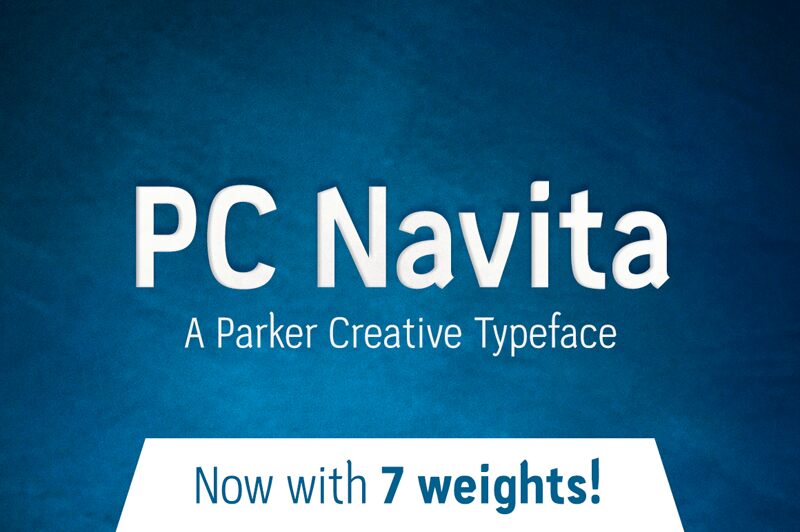
PC Navita is a captivating sans-serif font that immediately commands attention. Crafted by renowned designer Alan Parker, this font exudes a bold, assertive presence with its striking letterforms and taut, compact construction.
The clean, minimalist aesthetic gives PC Navita a sleek, modern feel, making it a versatile choice for a wide range of design applications. Its condensed width lends it a distinct visual impact, allowing designers to make a powerful typographic statement, whether in headlines, logos, or eye-catching displays. With its sharp, confident lines and subtle geometric undertones, PC Navita is a font that seamlessly bridges the gap between form and function, delivering a striking aesthetic that is both visually compelling and highly functional.